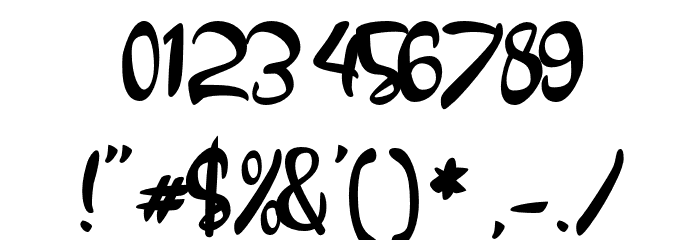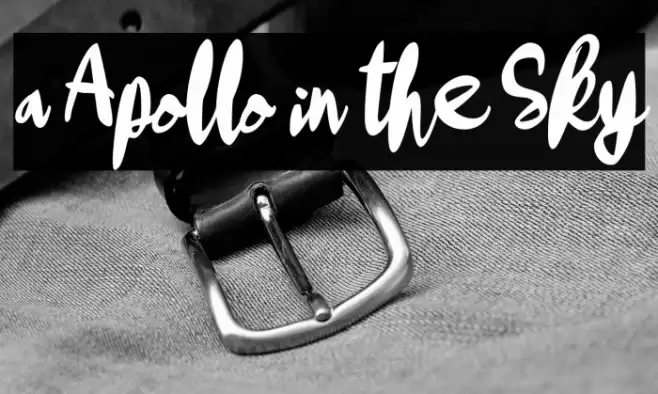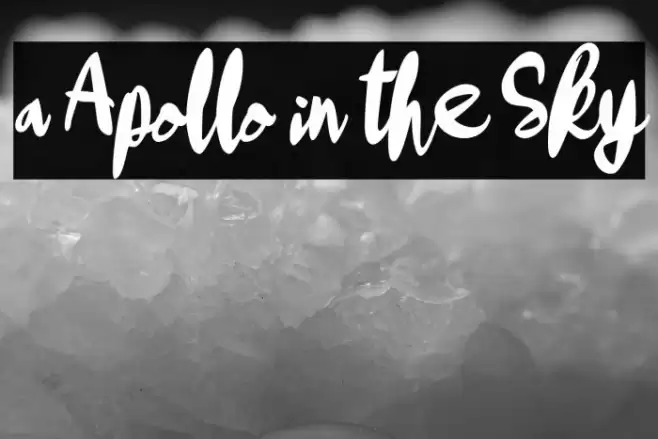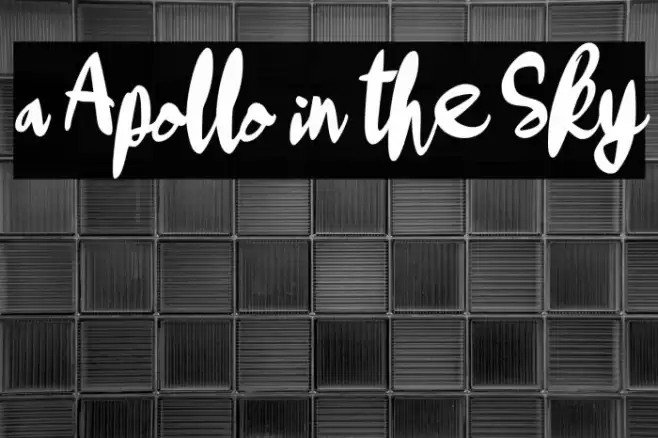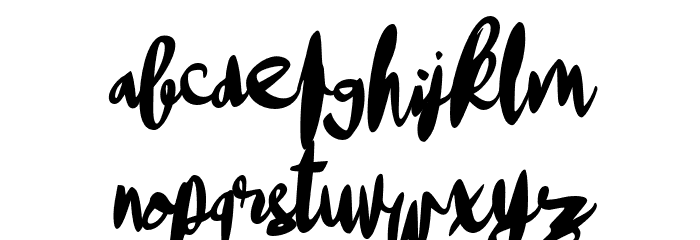
a Apollo in the Sky Font
| Gesamtstil | Modern, Artistic |
| Anwendungsfall | Logos, Headlines, Posters |
| Vorgeschlagene Projekte | Ideal for branding, posters, invitations, and artistic projects that require a personal and expressive touch. |